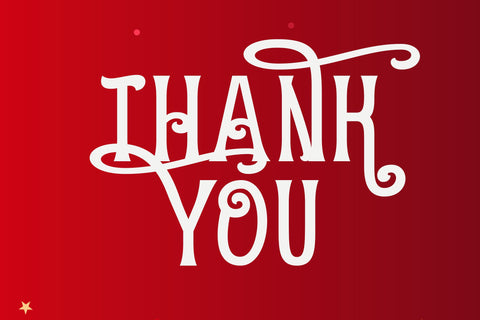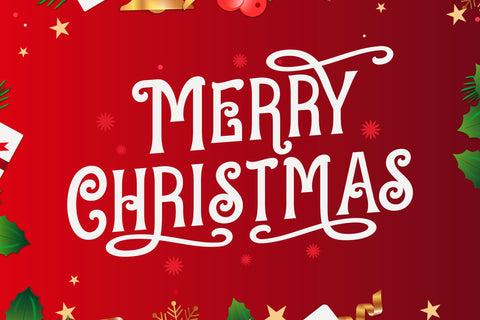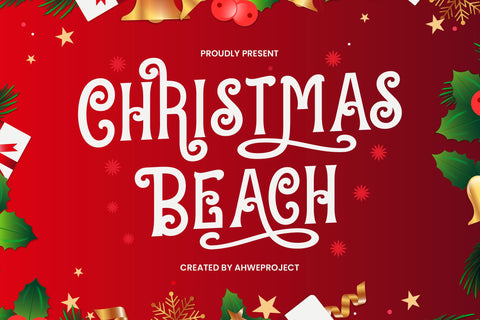
Christmas Beach - Classy Display
Christmas Beach is a festive and incredibly classy display font. It is ideal for any of your winter break creations so add it to your designs and bring them to life!